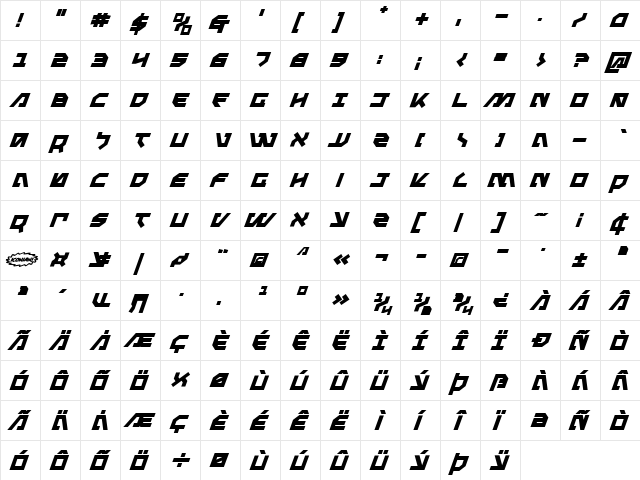
Metal Storm Bold Italic Font Preview
Metal Storm Bold Italic Bold Italic
Metal Storm Bold Italic Font Details
Design Context for Metal Storm Bold Italic Typeface
Metal Storm Bold Italic is a composed and adaptable typeface that performs quietly and consistently across a wide range of design contexts. The slanted form adds forward momentum and visual energy. The heavy weight commands attention and anchors typographic hierarchies.
Pro Tip: Use Metal Storm Bold Italic for emphasis, pull quotes, and subheadings where its slanted energy can add rhythm to the layout.